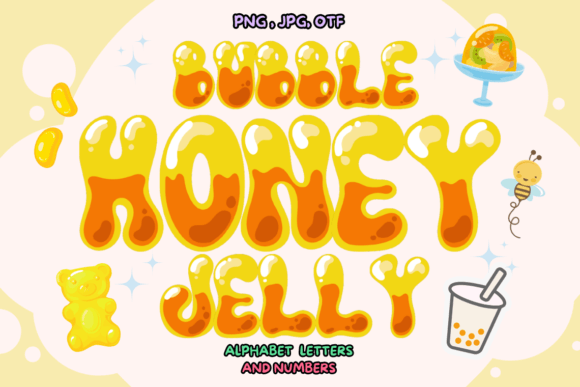
Bubble Honey Jelly Font: A Sweet Addition to Your Design Collection
Are you looking for a font that can add a touch of whimsy and playfulness to your designs? Look no further than the Bubble Honey Jelly Font! This delightful handwritten typeface is crafted with a playful bubble-like design and infused with the warm hues of honey, making it perfect for a variety of projects.
Introducing Bubble Honey Jelly Color Font
Immerse yourself in the golden sweetness of honey with the Bubble Honey Jelly Color Font. Each letter is carefully crafted with a playful bubble-like design, giving it a unique and eye-catching appearance. The warm hues of honey used in this font are sure to add a touch of coziness and friendliness to your designs.
This font is perfect for designers who want to add a touch of whimsy to their projects, from cheerful posters to charming packaging and beyond. The Bubble Honey Jelly Color Font is sure to elevate your designs and create a buzz of excitement!
Key Features of Bubble Honey Jelly Color Font
- Playful bubble-like design: Each letter is crafted with a unique and playful bubble-like design, making it perfect for adding a touch of whimsy to your designs.
- Warm hues of honey: The font is infused with the warm hues of honey, giving it a cozy and friendly appearance.
- Handwritten typeface: The Bubble Honey Jelly Font is a handwritten typeface, making it perfect for adding a personal touch to your designs.
Ideas for Using Bubble Honey Jelly Color Font
The Bubble Honey Jelly Color Font is a versatile font that can be used for a variety of design projects. Here are a few ideas to get you started:
- Cheerful posters: Use the Bubble Honey Jelly Color Font to create cheerful posters that are sure to grab attention.
- Charming packaging: Add a touch of whimsy to your packaging with this delightful font.
- Social media graphics: Use the Bubble Honey Jelly Color Font to create social media graphics that are sure to stand out.
- Wedding invitations: This font is perfect for creating whimsical and romantic wedding invitations.
Benefits of Using Bubble Honey Jelly Color Font
The Bubble Honey Jelly Color Font offers a number of benefits, including:
- Unique and eye-catching design: The playful bubble-like design of this font is sure to grab attention and add a touch of whimsy to your designs.
The Bubble Honey Jelly Color Font is a sweet addition to any design collection. With its playful bubble-like design and warm hues of honey, this font is perfect for adding a touch of whimsy to your designs. Whether you’re creating cheerful posters, charming packaging, or social media graphics, this font is sure to elevate your designs and create a buzz of excitement!